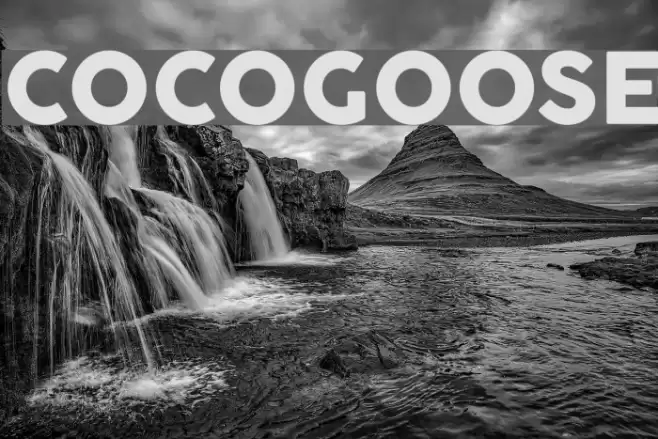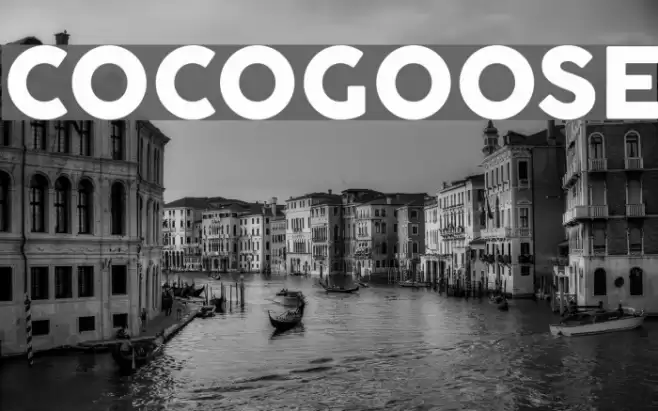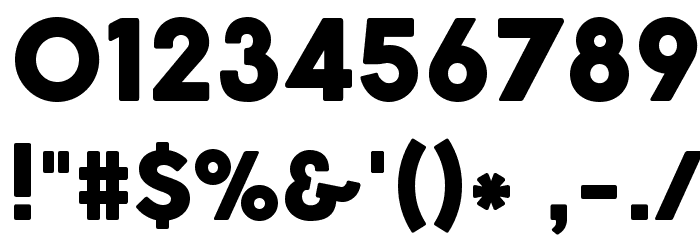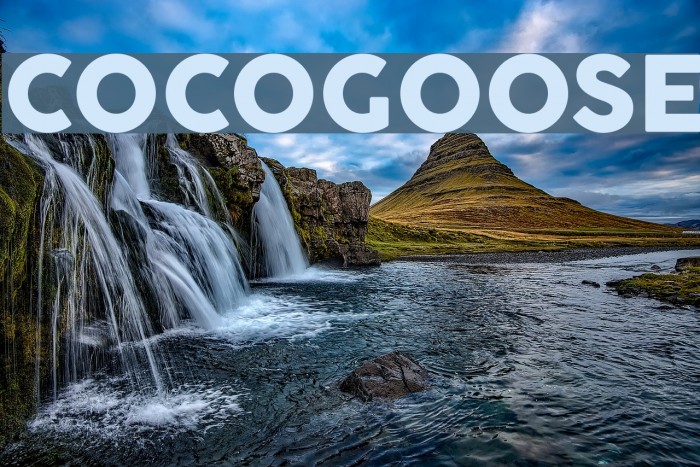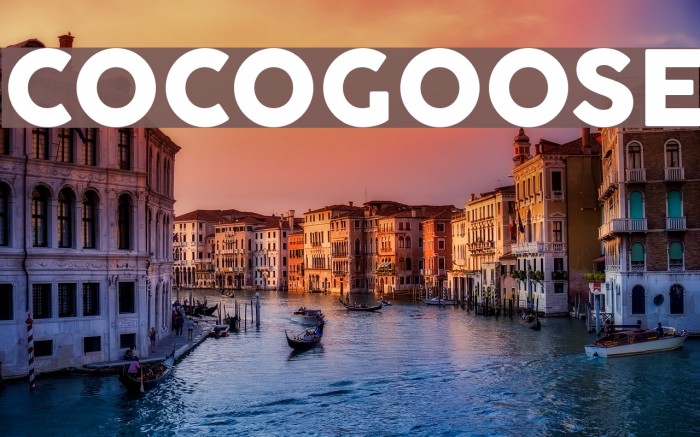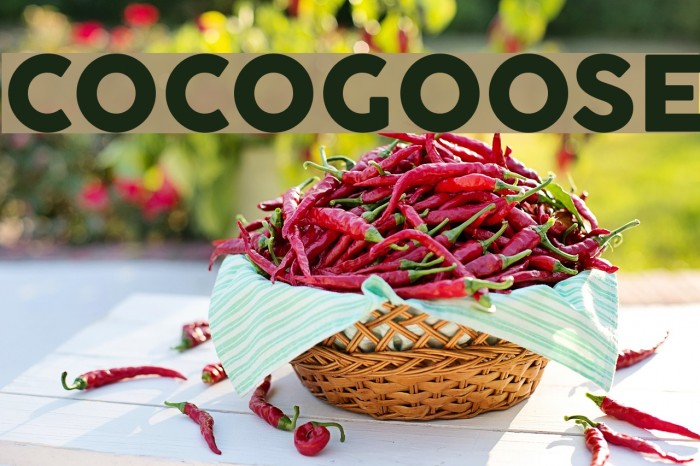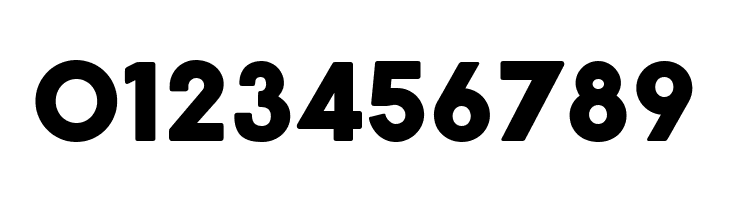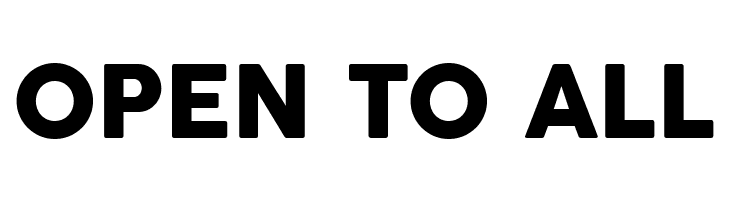
COCOGOOSE Font
COCOGOOSE Description
This font features a bold and modern sans-serif style with clean, geometric shapes. The characters are well-balanced with a consistent stroke width, providing a strong and impactful appearance. The uppercase letters are slightly wider, giving a sense of stability and confidence, while the lowercase letters maintain a friendly and approachable look. The numerals are clear and easy to read, making them suitable for various applications. Special characters are designed with the same attention to detail, ensuring uniformity across the typeface.
- Proposed Projects: Ideal for branding, advertising, headlines, and digital media projects where a strong visual impact is desired.
- Use Case: Headlines, Logos, Branding